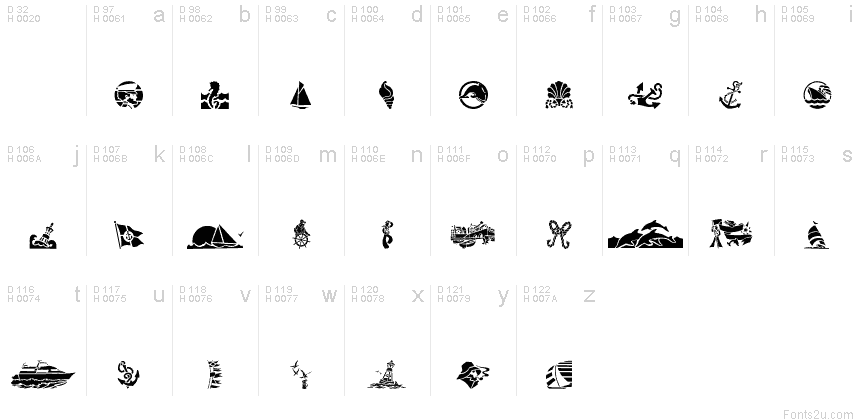
GE Nautica
GE Nautica font by Graphx Edge is a free nautical dingbat typeface. Bold black silhouettes of a sea captain’s profile, coiled anchors, and crisp circular emblems feel like they’ve been cut from inked paper stencils, giving your designs a strong, maritime stamp. The shapes are chunky, high-impact, and instantly readable, even at smaller sizes, so they work as both icons and statement graphics.
Using GE Nautica as oversized spot illustrations brings character to coastal restaurant menus, seaside event posters, rum or sea-salt packaging, pirate-party invitations, and vintage travel stickers. This free font also shines on logos and badges when you combine its icons with a clean geometric sans serif set in smaller text.